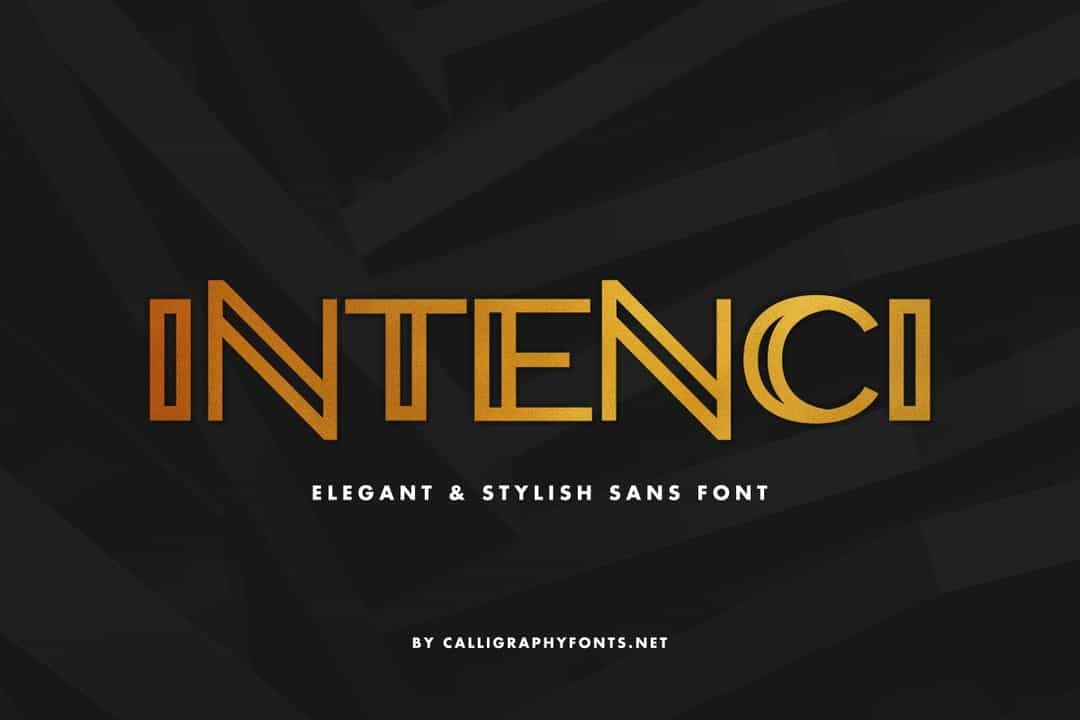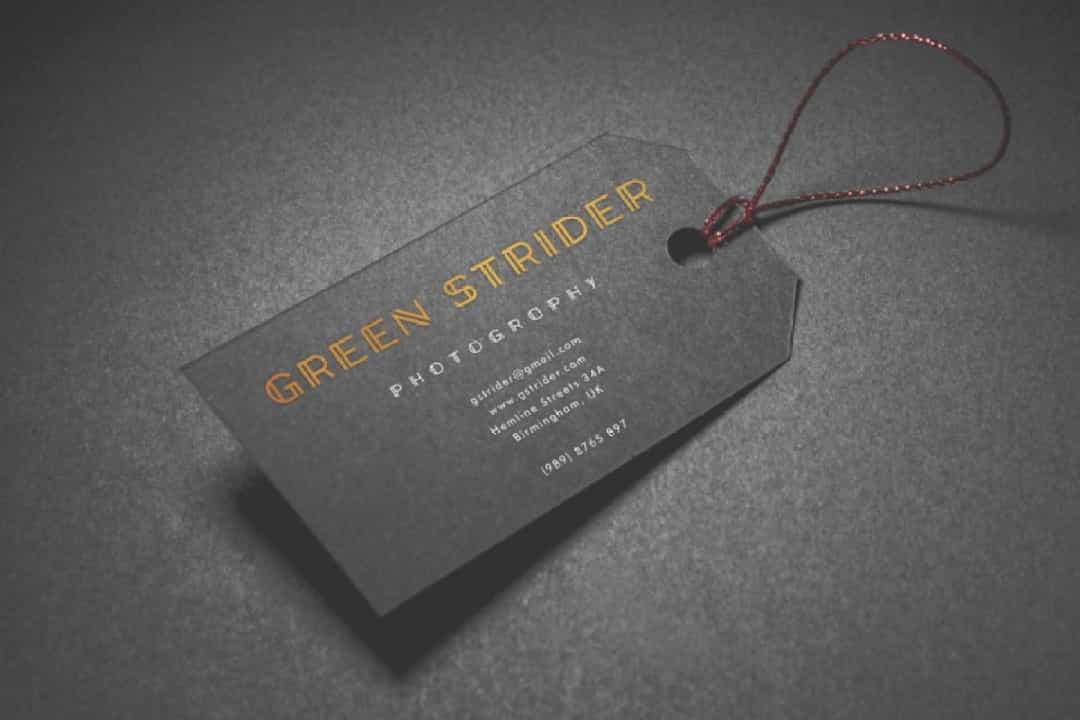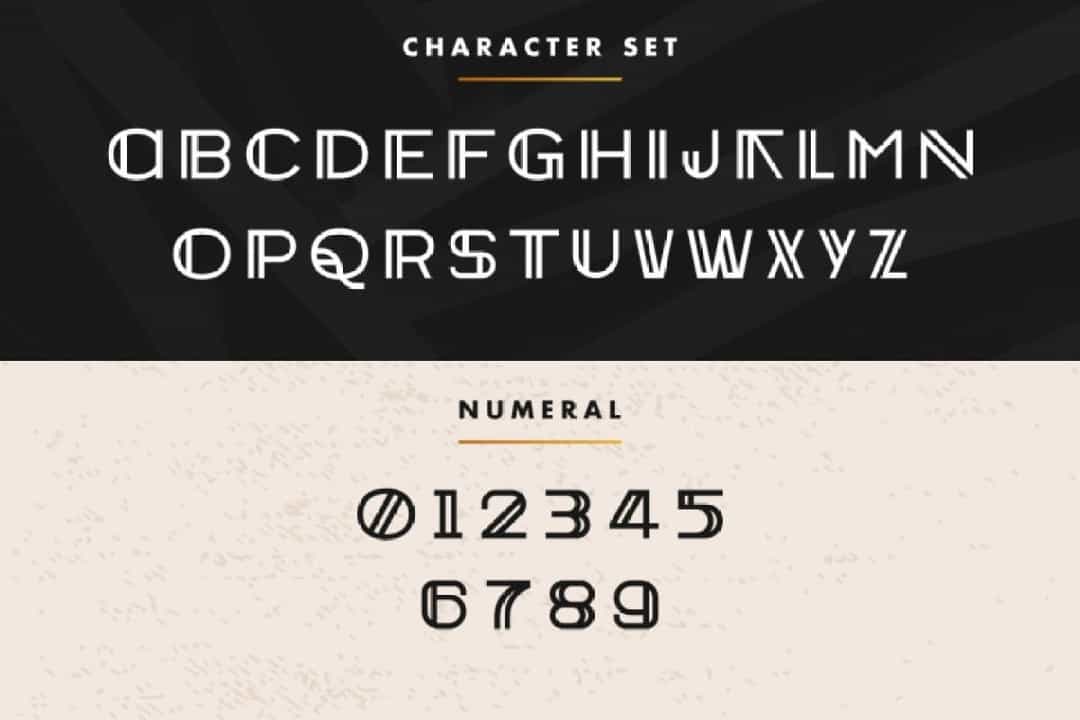
INTENCI is a display sans serif font with clean minimalist design of the font. The themes linked with INTENCI are modern sophistiset, classy sophistiset, timeless and elegant.